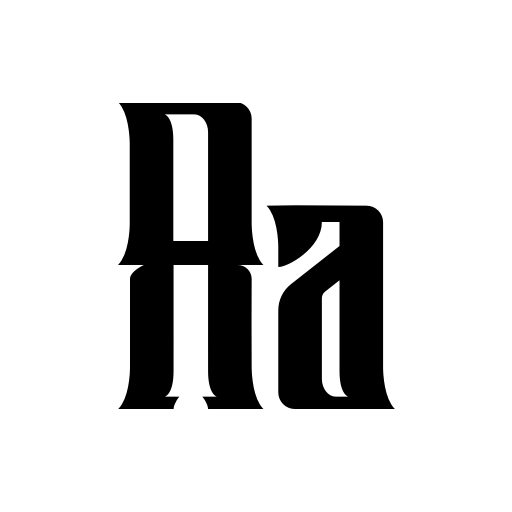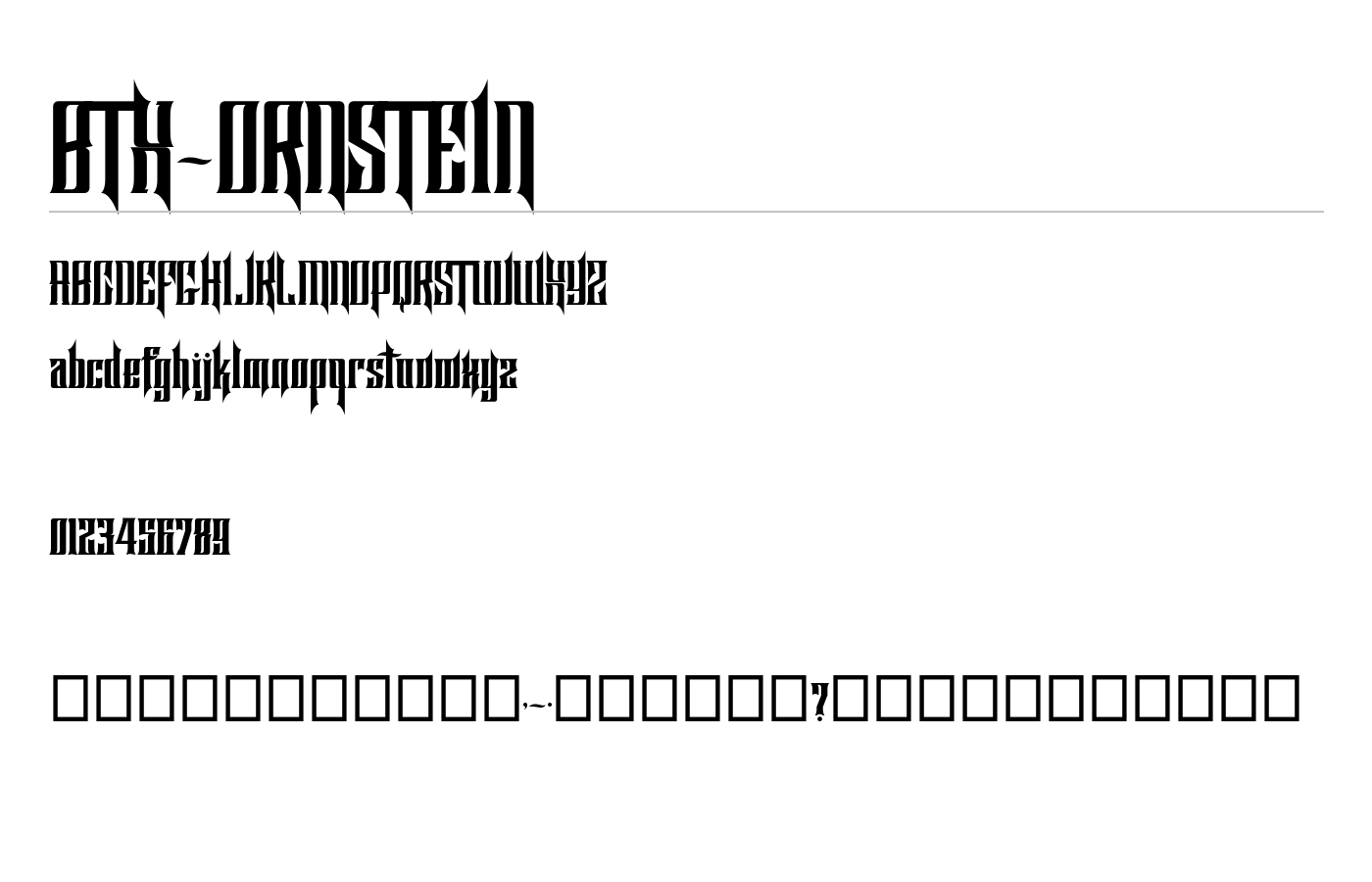
BTX-ORNSTEIN is a bold, condensed display font with a gothic, ornamental style that features sharp, angular edges and strong vertical strokes. Its high contrast and intricate letterforms evoke a dramatic, vintage feel, making it ideal for striking headlines, logos, or branding that aims to convey intensity and uniqueness. This font works best in designs seeking a dark, edgy, or historic atmosphere.
BTX-ORNSTEIN Font
About BTX-ORNSTEIN Font